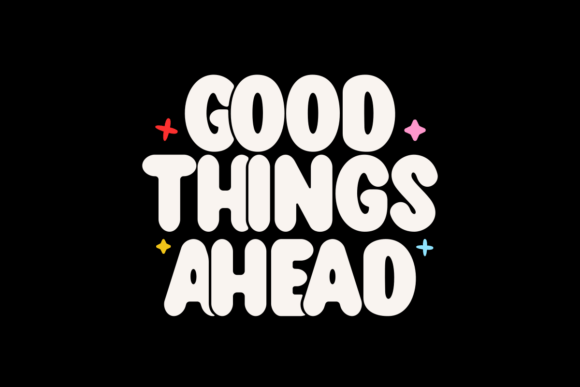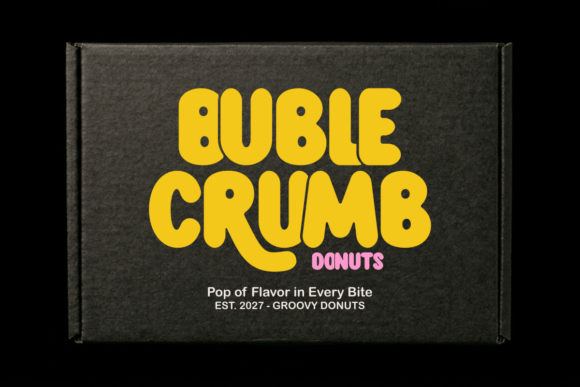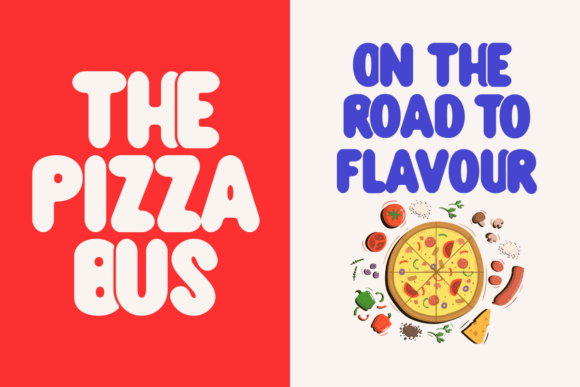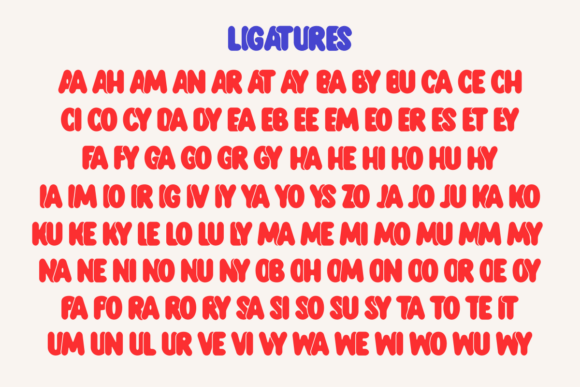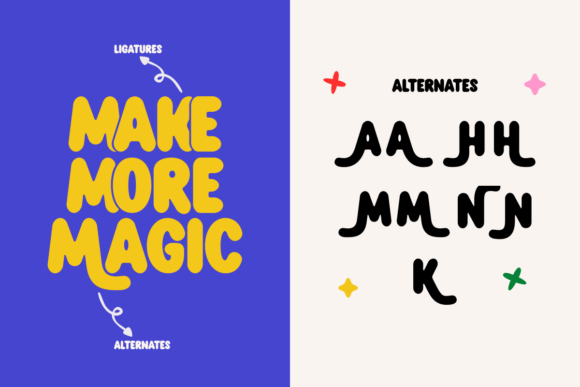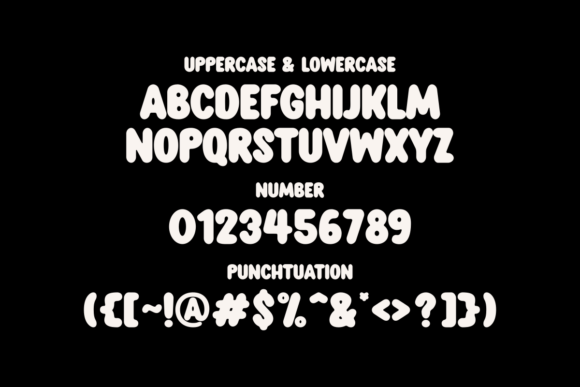
Introduction to Make Groovy Font
Introducing Make Groovy, an upbeat bubble font infused with the refreshing vitality and vibrant charm of the 70s.
This fondly old-school font adds character with its bold, endearing, and effortlessly undulating shape, casting a breezy, affable, and chic aura on all designs Accentuated by unique alternate characters, like the elongated tail on the letter ‘R’, Make Groovy offers boundless adaptability, allowing you to craft distinctive logos and personalized typography.